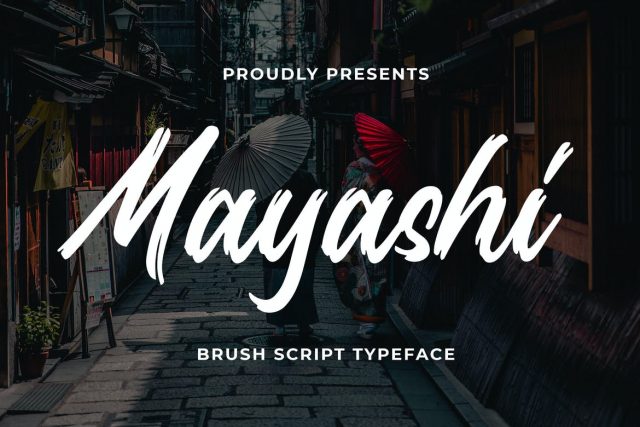
Introducing a new Handbrush typeface called Mayashi Brush Script Typeface. Mayashi good for signature, logotype, poster, social media, book cover, tshirt design, packaging and any more.
MULTILINGUAL ACCENT :
ŽžŠŒšŸÀÁÂÃÄÅÆÇÈÉÊËÌÍÎÏÐÑÒÓÔÕÖØÙÚÛÜÝßàáâãäåæçèéêëìíîïñòóôõöøùúûüýÿ
FEATURES :
Lowercase
Number
Punctuation
Multilingual